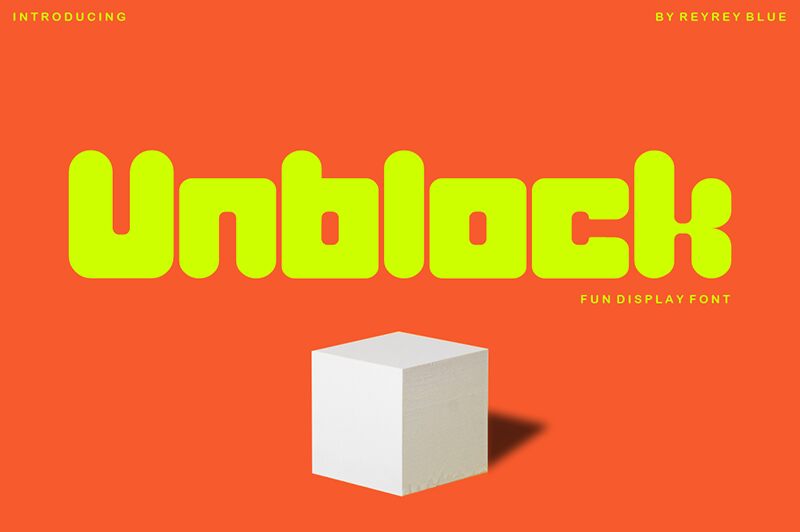
Unblock
Unblock font by ReyreyBlue is a bold techno display font with retro and modernist influence. The geometric, uniform characters are built modularly, presenting all letters in square shapes. This clear typeface relies on straight, horizontal, and vertical lines which connect at strong ninety-degree angles.
Enjoy Unblock font for titles where you want to grab attention such as sport jerseys, posters, billboards, or even films. The free display typeface can also be applied to board games such as puzzles or even card designs that require instant recognition from the audience involved.